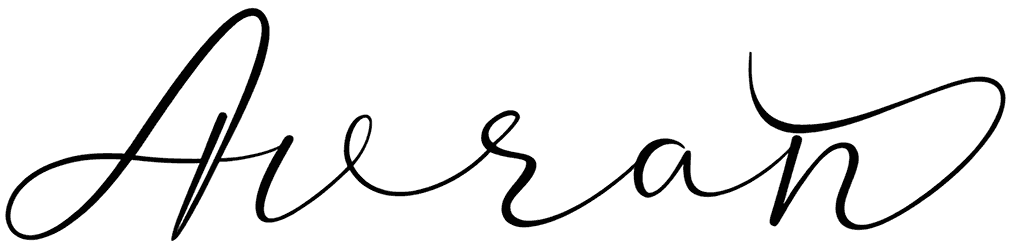
Avran Font
Sturdy, delicate, soft, and marvelous are the best possible words for describing a lovely script font, the same as the Avran that comes with thin and rounded letters.
This love font has the real potential to turn all of your creative ideas, including movie posters, flyers, book covers, magazines, and wedding invitations, into a true piece of art. Also, don’t forget that we have gathered a wide list of various artistic products in the RB archive for your convenience.